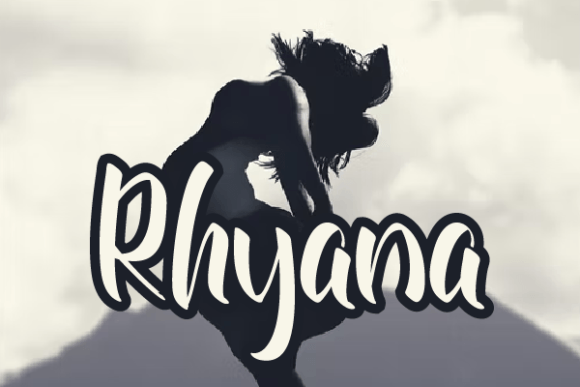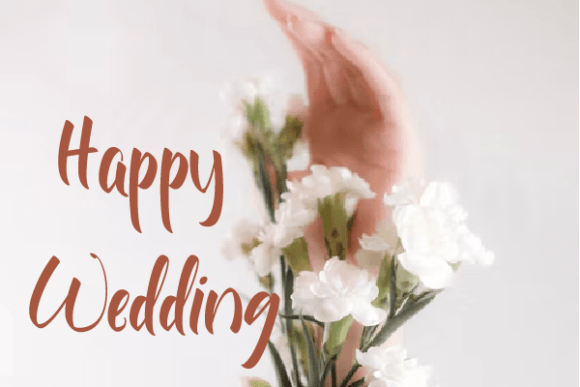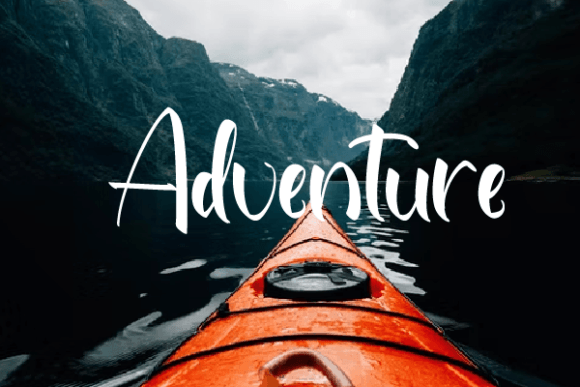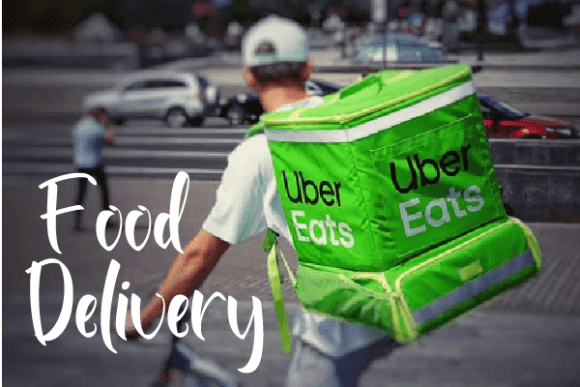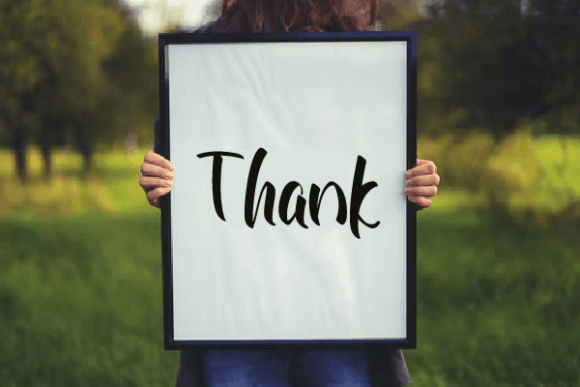
Rhyana Font
“Rhyana” is a contemporary handwritten font that adds a touch of modern elegance to a wide variety of creative projects. Its versatile and stylish design makes it a perfect choice for a range of applications, including wall displays, wedding invitations, social media posts, logos, advertisements, product packaging, product designs, labels, photography, watermarks, invitations, stationery, and any other project that benefits from a personalized, handwritten touch.
This font’s modern and sophisticated appearance gives your designs a polished and professional look. Its fluid strokes and balanced letterforms create a seamless and visually appealing aesthetic, making it suitable for both digital and print applications. Whether you’re designing for online platforms or physical products, “Rhyana” ensures that your content looks contemporary and refined.
The charm of “Rhyana” lies in its ability to convey a sense of intimacy and authenticity. Handwritten fonts like “Rhyana” establish a personal connection with the audience, making it ideal for invitations, stationery, and social media posts. Its casual yet elegant look adds a touch of personality, allowing you to communicate your message in a genuine and approachable manner.
Additionally, “Rhyana” is versatile enough to be used for branding and marketing materials. Its clean and modern appearance ensures that your logos, advertisements, and product packaging exude professionalism and creativity, leaving a lasting impression on viewers and customers alike.
By incorporating “Rhyana” into your projects, you’re infusing your designs with a contemporary, handwritten charm. Its versatility and sophisticated style enhance the overall visual appeal and impact of your creative endeavors. Whether you’re a graphic designer, a business owner, or an individual working on personal projects, “Rhyana” provides you with a stylish and elegant font choice to elevate your ideas and create visually stunning outcomes.